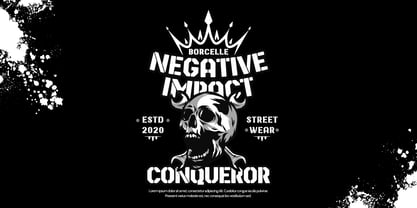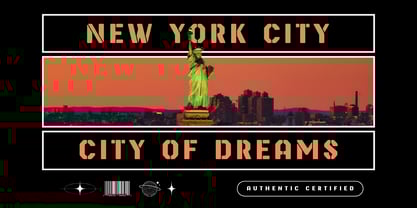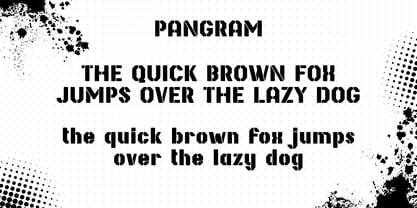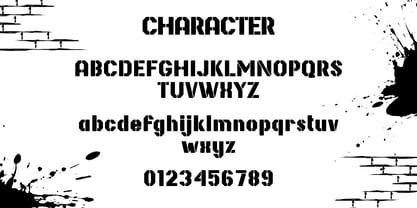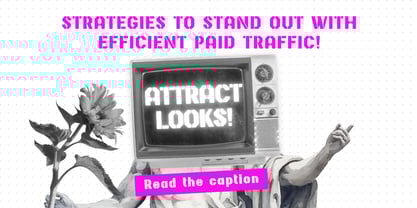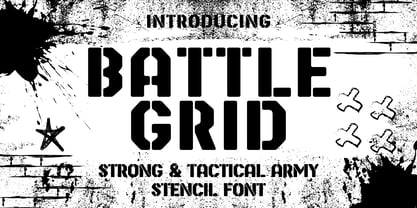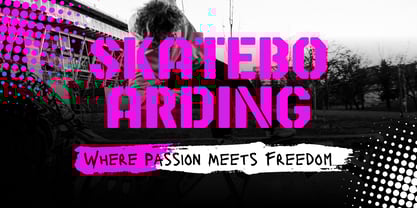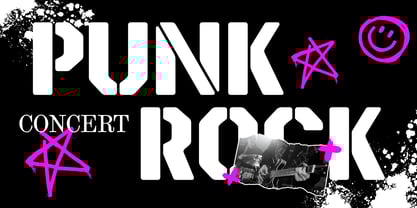
Battle Grid
by Beary
The Battle Grid Font Family was designed by Dian Haniffan Hadi and published by Beary. Battle Grid contains 1 styles. More about this family
Battle Grid is a modern stencil font with strong military, tactical, and industrial vibes. Designed with bold cuts and precise grid shapes, this font delivers a masculine, powerful, and impactful look that stands out in any design. It blends classic army style with futuristic elements, making it perfect for projects that need to look strong but still modern and readable.
Designers: Dian Haniffan Hadi
Foundry: Beary